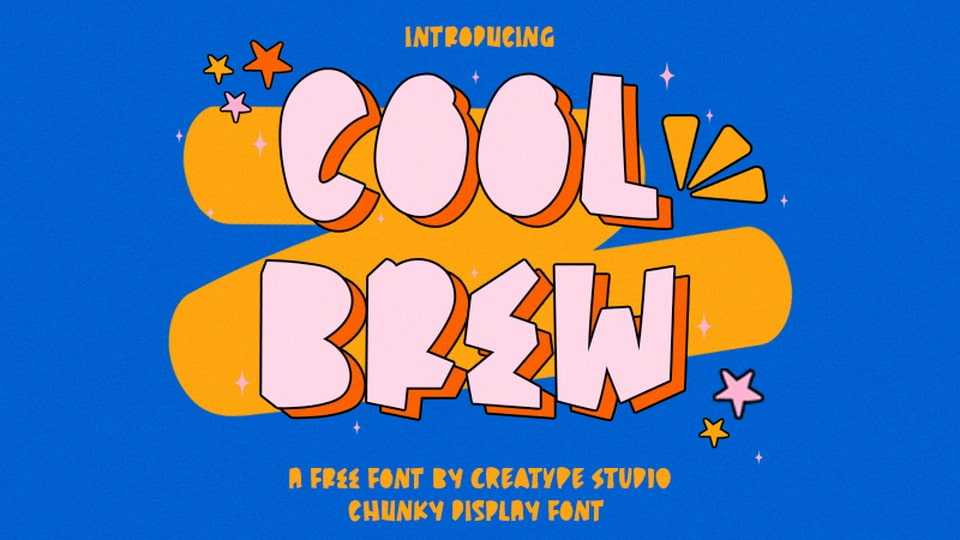
Download Coolbrew font, a bold and playful hand-crafted typeface that exudes a sense of fun and creativity. Its chunky letterforms are brimming with personality.